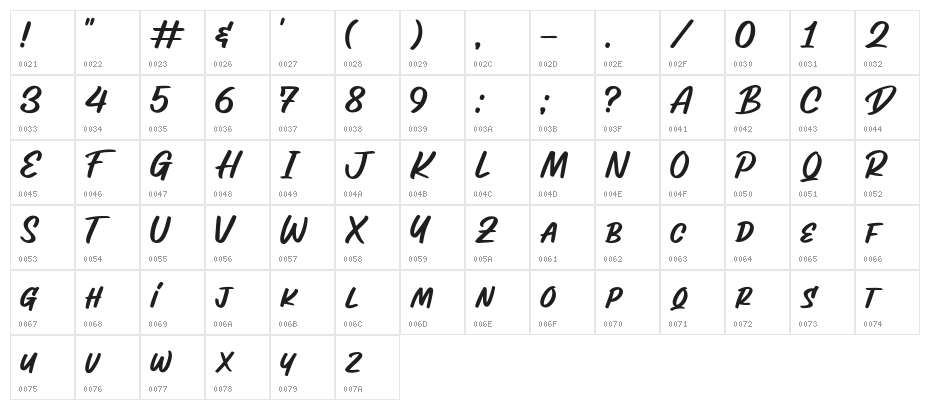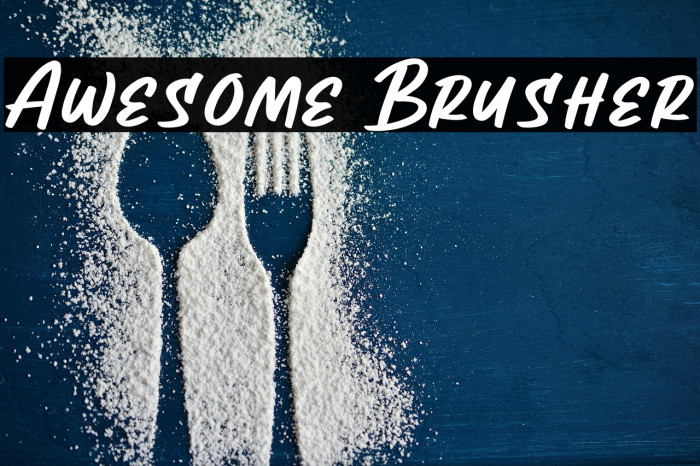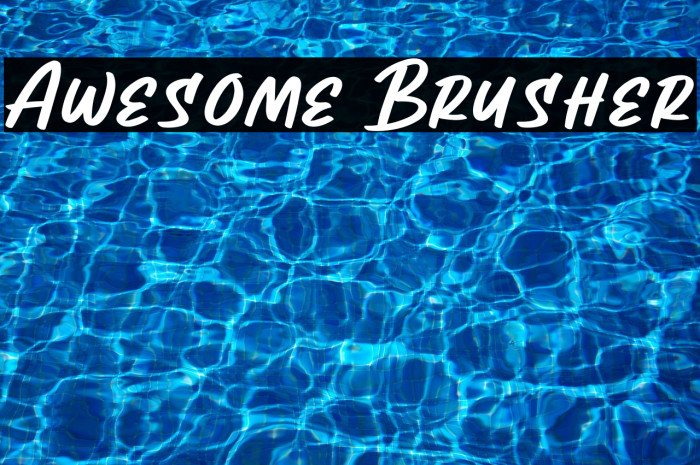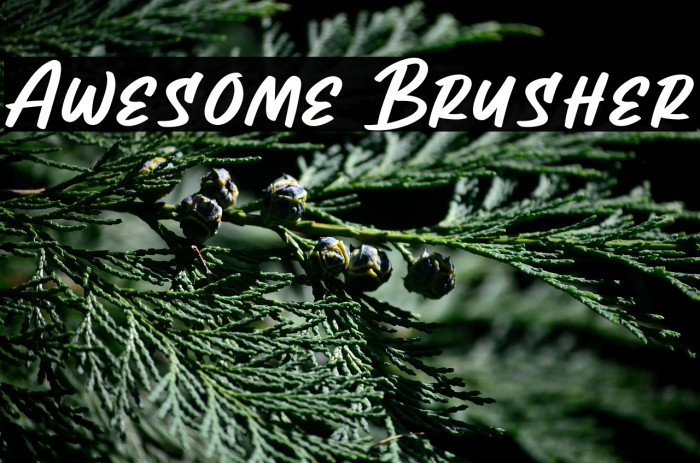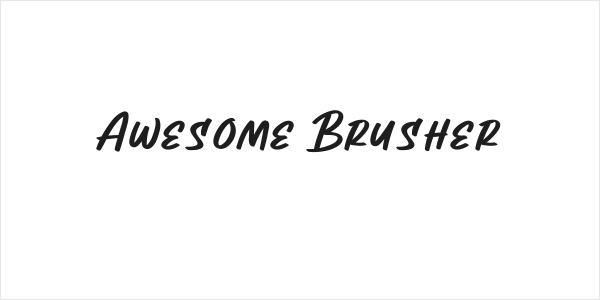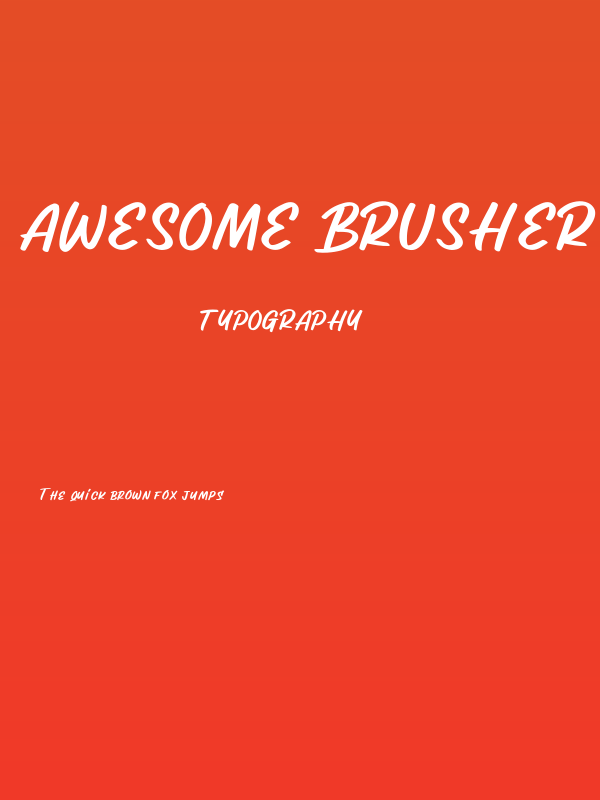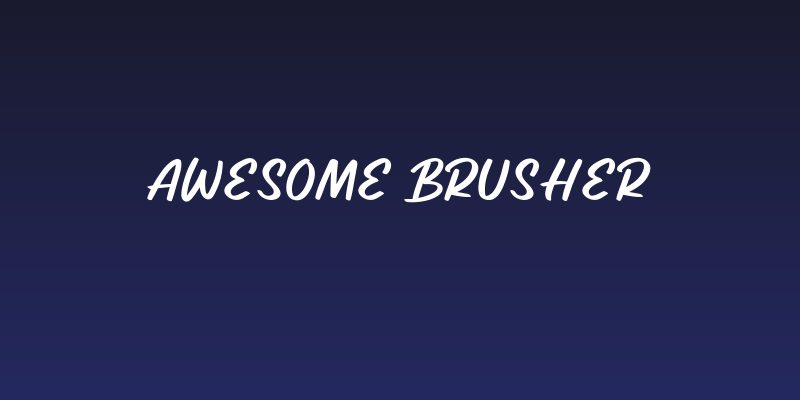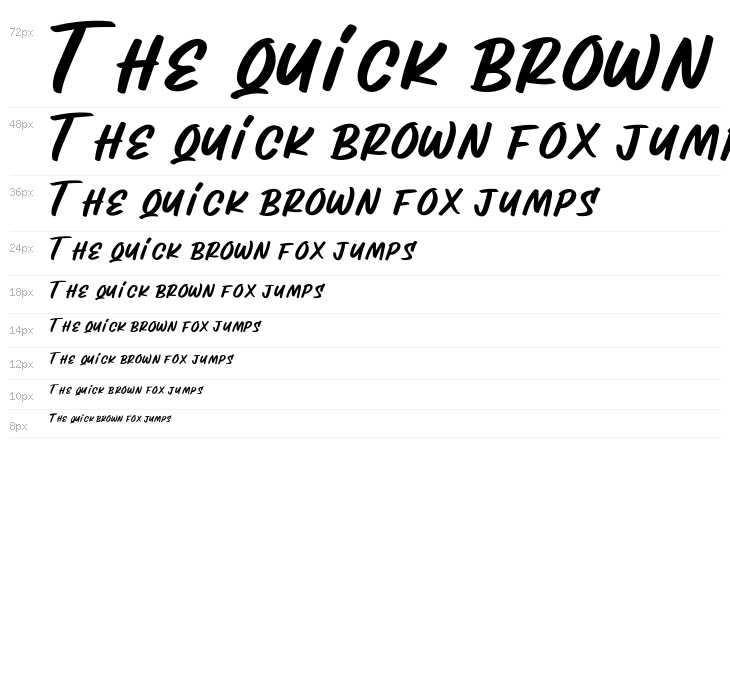
Awesome Brusher Font
Awesome Brusher Description
This font exudes a dynamic and energetic vibe, characterized by its bold, brush-like strokes that convey a sense of movement and fluidity. The uppercase and lowercase letters maintain a consistent style, with slightly slanted forms that enhance its casual and informal appearance. The numerals and special characters are crafted with the same attention to detail, ensuring a cohesive look across all elements. Its handwritten style is both playful and expressive, making it ideal for projects that require a personal touch. The overall design is modern yet retains a classic brush script feel, making it versatile for various applications.
| Proposed Projects | Ideal for branding, invitations, posters, and social media graphics where a personal, artistic touch is desired. |